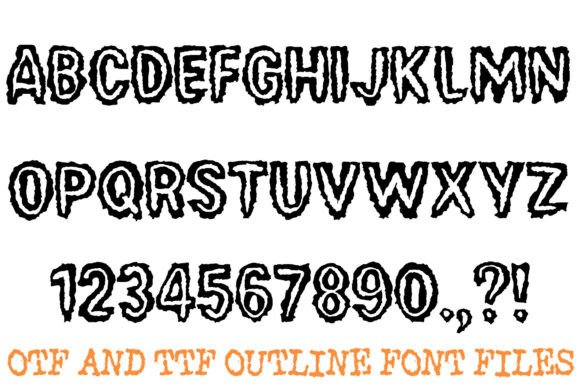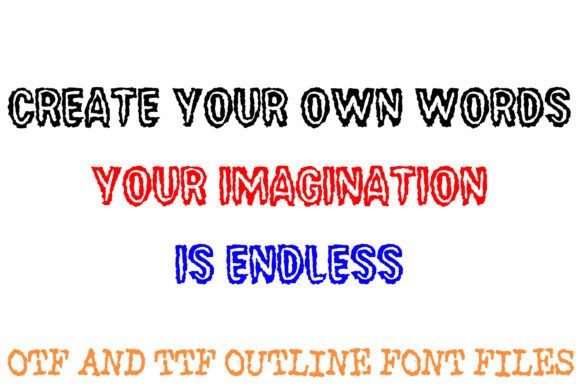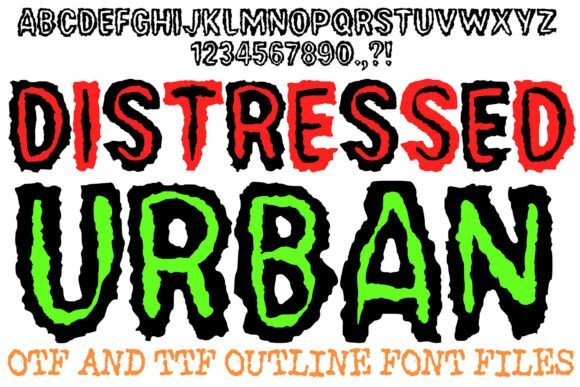
Introduction to Distressed Urban Font
Give your designs a raw, high-voltage edge with the Distressed Urban Font.
This hand-drawn display alphabet features heavy, vibrating silhouettes characterized by a unique double-layered effect: a thick, jagged black outline surrounding a bright white inner core It is an exceptional choice for underground music posters, edgy streetwear branding, high-action gaming titles, and bold social media graphics that need an β€œelectrified” urban look.
Key Features of Distressed Urban Font
Why Choose Distressed Urban Font?
Distressed Urban Font offers exceptional quality and versatility, making it a valuable addition to your design toolkit. Whether you’re creating for personal projects or commercial use, Distressed Urban Font delivers professional results.